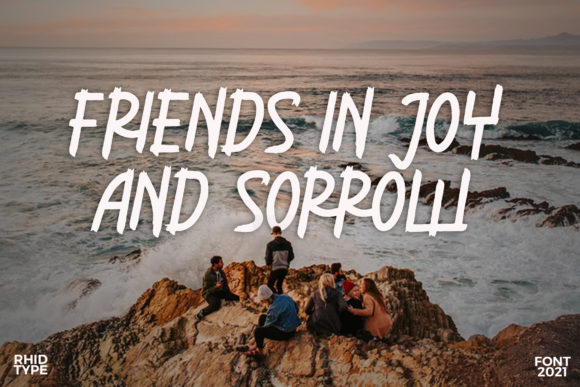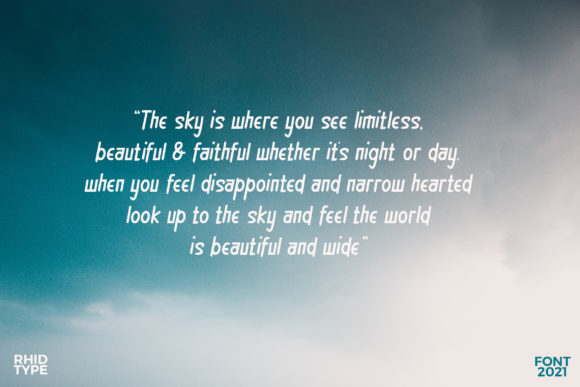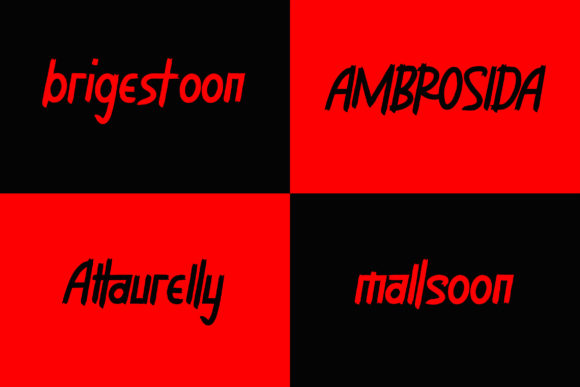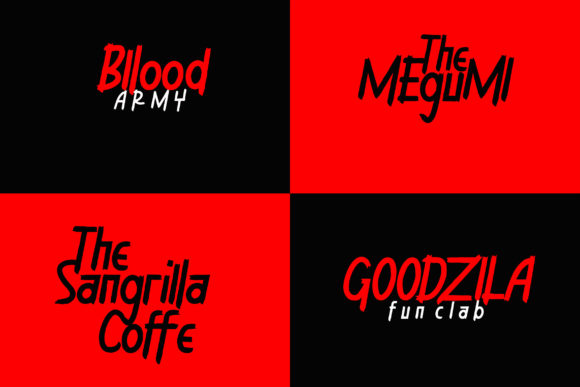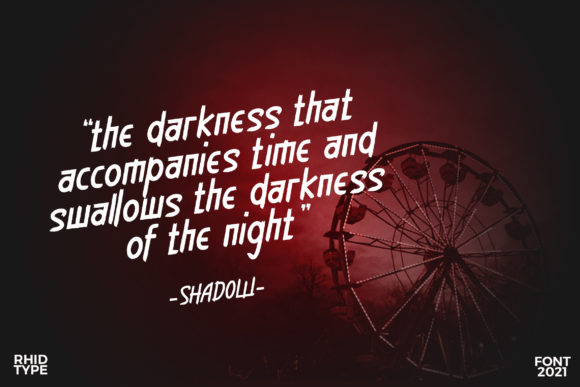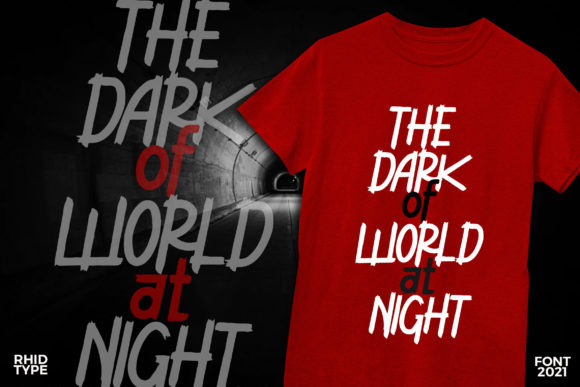
Unleash Your Creativity with Dark Angker Font: A Solid Display Font
Are you a designer or crafter looking for a font that can add a touch of drama and creativity to your projects? Look no further than the Dark Angker Font. This solid display font is designed to make your ideas come alive, and in this article, we’ll explore its features, benefits, and uses.
What is Dark Angker Font?
Dark Angker Font is a display font that is perfect for creative projects. Its unique design and bold style make it stand out from other fonts, and it’s sure to grab attention. Whether you’re working on a logo, poster, or social media graphic, Dark Angker Font is a great choice.
Key Features of Dark Angker Font
- Bold and Solid Design: Dark Angker Font has a bold and solid design that makes it perfect for display purposes.
- Unique Style: The font has a unique style that sets it apart from other display fonts.
- Easy to Read: Despite its bold design, Dark Angker Font is easy to read, even at smaller sizes.
- Versatile: The font can be used for a variety of projects, from logos and posters to social media graphics and more.
Benefits of Using Dark Angker Font
So why should you choose Dark Angker Font for your projects? Here are just a few benefits:
- Adds Drama and Creativity: Dark Angker Font adds a touch of drama and creativity to your projects, making them stand out from the crowd.
- Grabs Attention: The bold design of the font grabs attention and draws the eye to your message.
Uses for Dark Angker Font
Dark Angker Font can be used for a variety of projects, including:
- Logos and Branding: The font is perfect for logos and branding, adding a touch of drama and creativity to your brand.
- Posters and Flyers: Dark Angker Font is great for posters and flyers, grabbing attention and drawing the eye to your message.
- Social Media Graphics: The font can be used to create eye-catching social media graphics that stand out from the crowd.
- Signs and Banners: Dark Angker Font is perfect for signs and banners, adding a touch of drama and creativity to your message.
Dark Angker Font is a solid display font that can add a touch of drama and creativity to your projects. With its bold design, unique style, and ease of use, it’s perfect for designers and crafters looking to make their ideas come alive. Whether you’re working on a logo, poster, or social media graphic, Dark Angker Font is a great choice. So why not give it a try and see the difference it can make?
Dark Angker is a solid display font. Add it to your most creative ideas and notice how it makes them come alive!